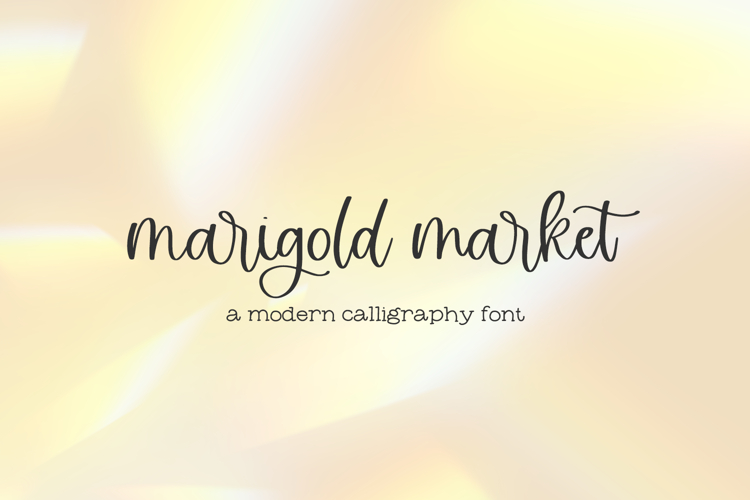
Marigold Market Script
Introducing Marigold Market, a modern calligraphy script.
Marigold Market is best for:
- feminine, crafty projects with your Cricut or Silhouette machine, or your SVG design business
- farmhouse decor and crafts
- website design + website accents, blog design
- feminine graphic tee shirt design & other apparel
Marigold Market includes:
- 26 alternate lowercase characters
- 20 ligatures - ar, bb (x2, standard & discretionary), cc, dd, ee, er, ff, gg, ir, ll, mm, nn, or, pp, rr, ss, th, tt, ur